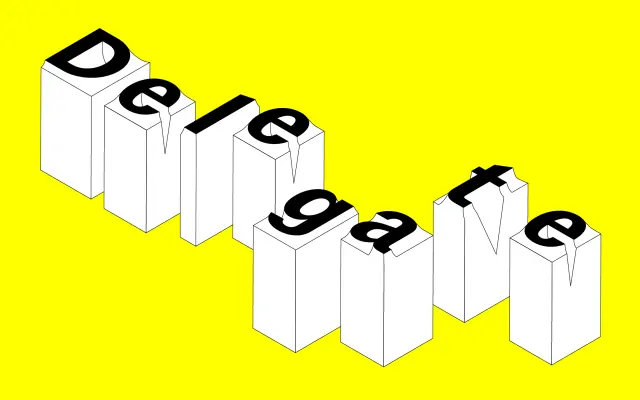
Oli Grotesk
A grotesque sans-serif from November, a design and type foundry based in India.
Oli Grotesk is a grotesque sans-serif typeface from November, an Indian type foundry known for thoughtful, culturally engaged work. The page did not render full specimen or specification details for this typeface at the time of scraping. November's output tends toward refined, functional type with considered design thinking.